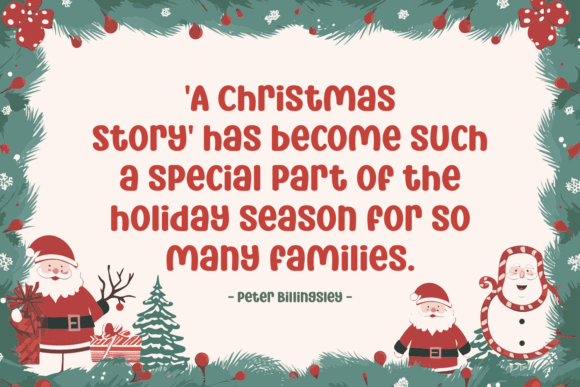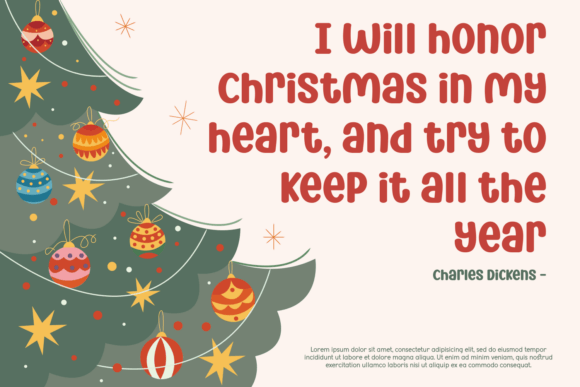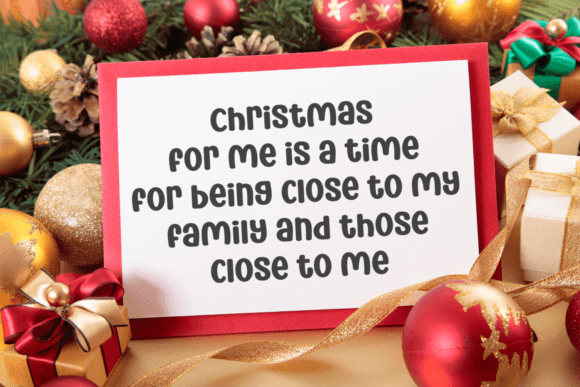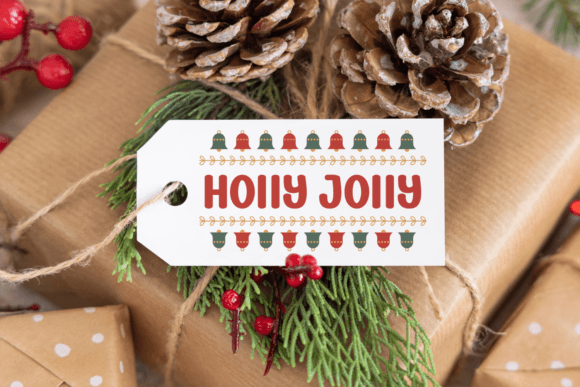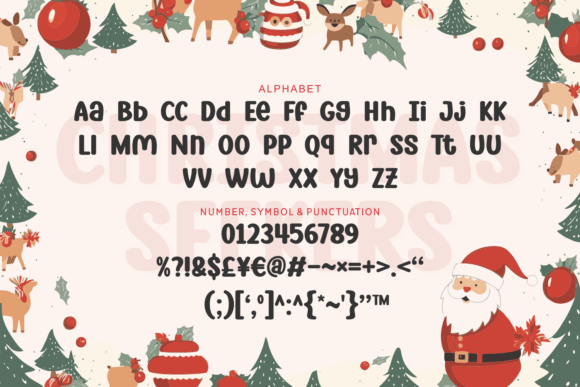
Introduction to Christmas Seekers Font
As the holiday season approaches, many of us begin to brainstorm creative ways to spread cheer and festive spirit. For designers, this means scouring the web for the perfect design resource to make our projects shine. And for those looking to add a touch of whimsy to their Christmas designs, the Christmas Seekers Font is sure to be a game-changer.
With its bold, playful style and strong, eye-catching letters, the Christmas Seekers Font is a high-quality addition to any designer’s toolkit. Whether you’re creating festive holiday greetings or decorations, this fun display font is sure to bring a smile to the faces of your audience. And the best part? The Christmas Seekers Font is available for a free download, making it a valuable resource for designers of all levels.
Key Features of Christmas Seekers Font
- High-quality design resource perfect for creative projects, especially those related to Christmas and winter themes.
- Unique, hand-drawn style that adds a touch of personality to any design project, making it stand out from more generic fonts.
Honest Review: Christmas Seekers Font
I recently came across the Christmas Seekers Font, and I must say it’s a great addition to any design resource collection. The font is a high-quality, free download that’s perfect for creative projects requiring a festive touch.
One of the things that stands out about this font is its versatility. The design is elegant, yet playful, making it suitable for a wide range of applications, from website headers to social media graphics.
- ✨ High-quality design that’s perfect for festive projects
- ✨ Suitable for a wide range of applications, from website headers to social media graphics
- ✨ Available for free download, making it an excellent addition to any design resource collection
- ⚠️ Limited character set, which may not be suitable for complex text-based projects
- ⚠️ No transparent background option, which may limit its use in certain design scenarios
Overall, the Christmas Seekers Font is a great addition to any design collection. While it may have some limitations, its high-quality design and versatility make it a valuable resource for designers working on festive projects.
The Christmas Seekers Font is perfect for a variety of creative projects, including holiday cards, invitations, social media graphics, and more. Its high-quality design and transparent background make it a versatile resource for any designer.